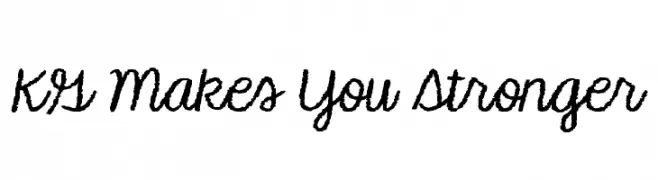
A bold, medieval-inspired font with dramatic strokes and ornate details.
A bold, striped decorative font with a playful and dynamic style.
A playful, bold font with rounded, slightly slanted letterforms.
A playful, comic-style outline font with rounded, hand-drawn characters.
A classic serif font with high contrast and elegant strokes.
A bold, playful font with rounded edges and thick strokes.
A playful, bold handwritten font with smooth, rounded edges and a casual style.
A playful, bold, and hand-drawn font with a casual and friendly vibe.
A bold, brush-style font with dynamic, slanted strokes and artistic flair.
A classic, elegant script font with flowing, cursive letterforms.
A bold, expressive script font with dynamic brush strokes.
A playful, bold, and rounded font with a hand-drawn, vintage charm.
A playful, bold handwritten font with rounded, irregular letters.
A bold, dynamic handwritten font with lively, irregular strokes.
A bold, modern sans-serif typeface with strong, consistent strokes.
A sleek, italicized font with thin, consistent strokes and a modern, elegant design.
A playful, bold font with rounded, thick strokes and a hand-drawn feel.
A playful, casual handwritten font with fluid, slightly irregular strokes.
Expressive handwritten script with fluid, elegant strokes.
A decorative serif font with snowflake embellishments, perfect for festive designs.
A bold, playful font with dynamic slanted characters.
A bold, handwritten font with a playful and dynamic style.
A bold, geometric font with strong, uniform strokes and a modern, impactful style.
A bold, geometric font with a vintage yet modern appeal.